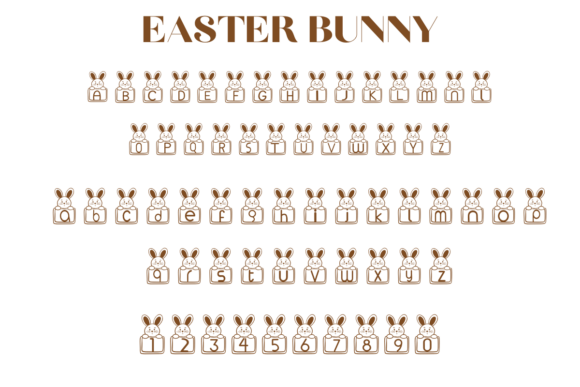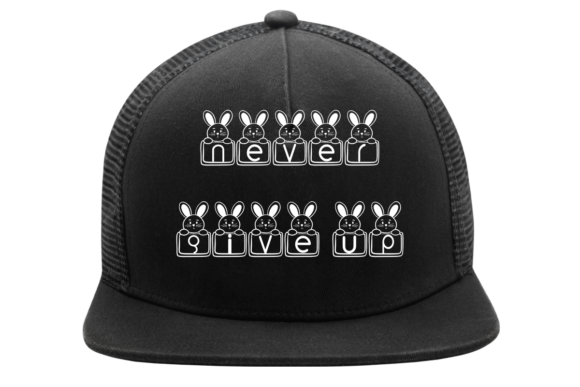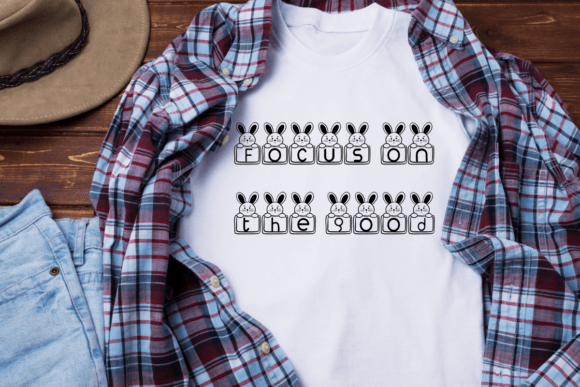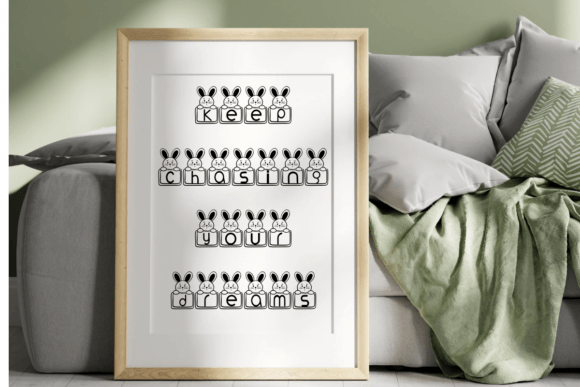
The Easter Bunny Font: A Beautiful Addition to Your Design Arsenal
With its organic and beautiful decorative style, featuring lovely ornaments, this font has become a staple in my design library. Whether I’m working on a greeting card, a social media post, or a full-blown branding project, the Easter Bunny font always seems to elevate my creations to the next level.
- ✨ The Easter Bunny font is incredibly versatile, making it perfect for a wide range of design projects.
- ✅ The font features a wide range of lovely ornaments and glyphs, allowing for endless creative possibilities.
- 💫 The organic and decorative style of the font adds a touch of whimsy and elegance to any design.
- 👍 The font is incredibly easy to read, even at smaller sizes.
While the Easter Bunny font is an amazing addition to any design library, it’s not without its quirks. For example:
- ⚠️ The font can be a bit over-the-top for very formal or minimalist designs.
- 🤔 Some of the ornaments and glyphs can be a bit finicky to work with, especially for beginners.
The Story Behind the Easter Bunny Font
The Easter Bunny font was designed by a talented team of designers who wanted to create a font that would bring a touch of whimsy and elegance to any design. Inspired by the playful, organic feel of traditional Easter decorations, the Easter Bunny font was born. With its lovely ornaments and glyphs, this font is sure to delight designers and crafters alike.
Q: What type of designs is the Easter Bunny font best suited for?
A: The Easter Bunny font is incredibly versatile and can be used for a wide range of designs, from Easter-themed projects to more general designs that need a touch of whimsy and elegance.
Q: Is the Easter Bunny font easy to read?
A: Yes, the Easter Bunny font is incredibly easy to read, even at smaller sizes. This makes it perfect for designs that need to communicate a message clearly.